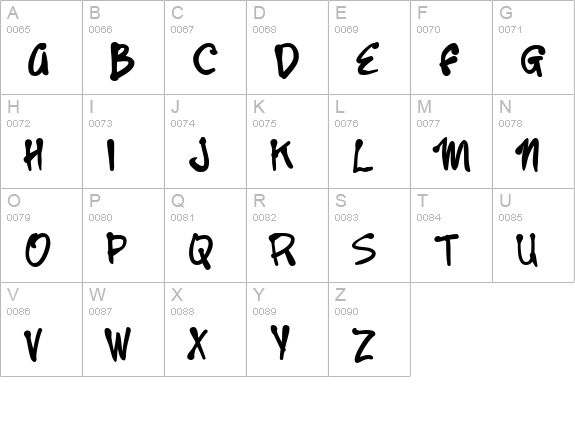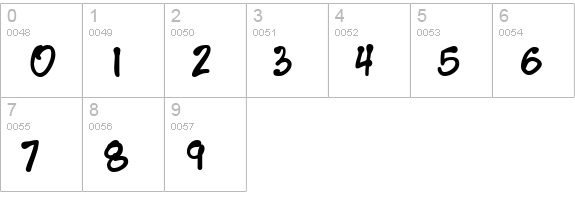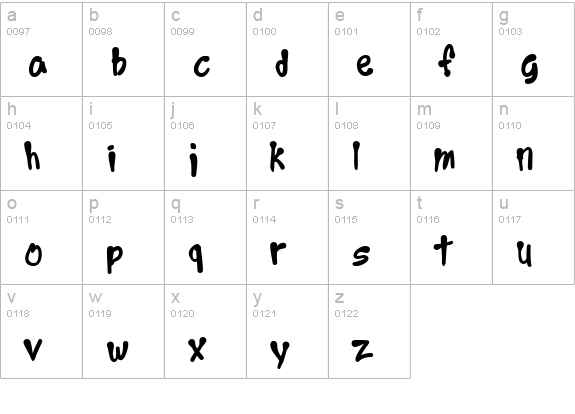
Year2000Boogie Font Details
Year2000Boogie font is a fun and funky display typeface that exudes retro charm and nostalgia. With its bold and playful design, this font is perfect for adding a touch of whimsy to your projects. The unique character shapes and quirky details make Year2000Boogie stand out and grab attention. Best of all, Year2000Boogie is available for free download at FontsMarket.com. This means you can easily access and use this delightful font for all your creative endeavors without any cost. Whether you're working on a poster, flyer, logo, or any other design project, Year2000Boogie is sure to bring a lively and energetic vibe to your work. Download it now and let your creativity boogie with Year2000Boogie font!